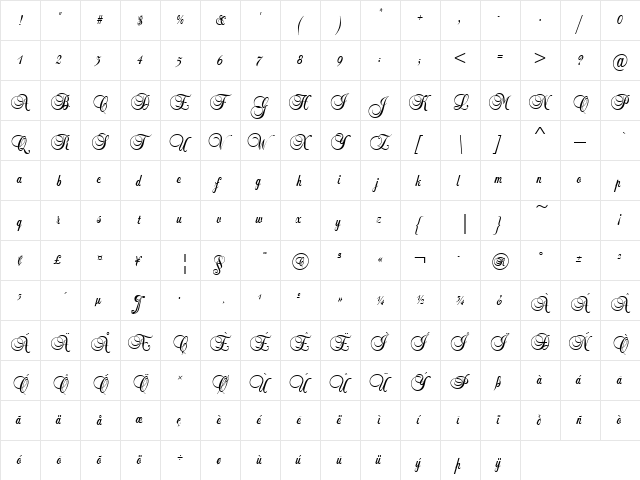
URWBaillyJoiD Regular Font Preview
URWBaillyJoiD Regular
Design Context for URWBaillyJoiD Typeface
URWBaillyJoiD is a composed and adaptable typeface that performs quietly and consistently across a wide range of design contexts.